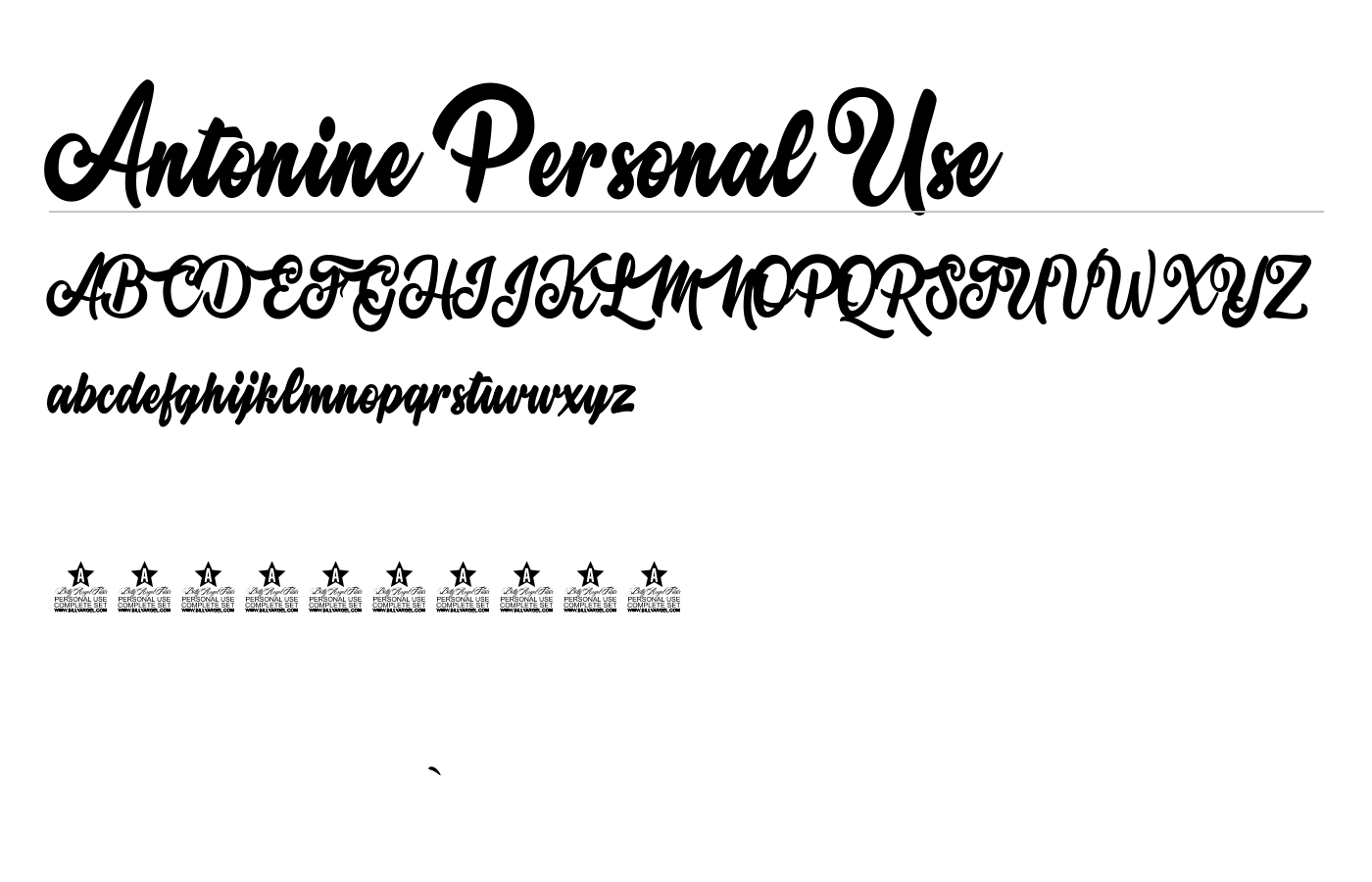
Antonine Personal Use is a bold, script-style font with a lively, handwritten feel. It features smooth, flowing strokes with rounded edges and a moderate x-height, making it both playful and elegant. This font works beautifully for creative branding, invitations, and eye-catching headlines where a personal, warm touch is desired.
Antonine Personal Use Font
About Antonine Personal Use Font
| Font family | Antonine Personal Use Font |